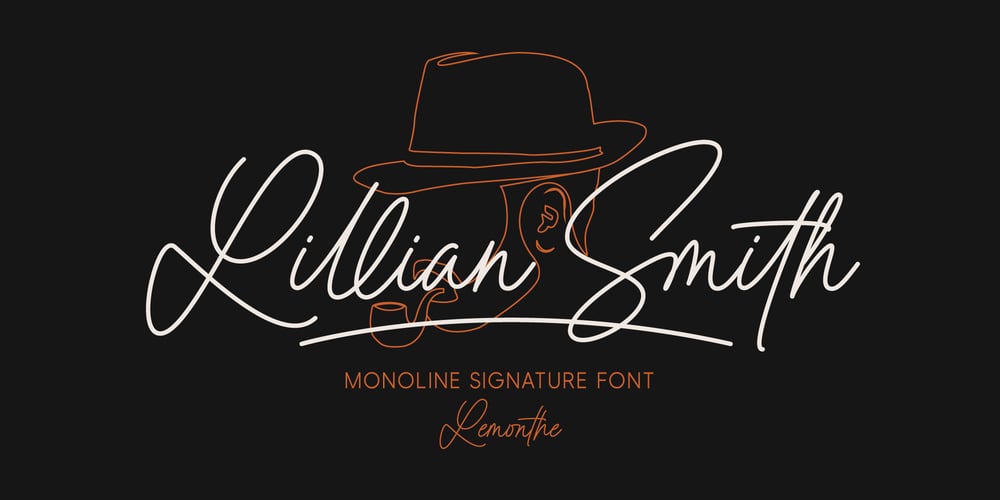
Lillian Smith Font Family was designed by Dwi Ahidian and published by Lemonthe. Lillian Smith contains 1 styles and family package options. Lillian Smith is a monoline signature font. Featuring 84 ligatures, this font delivers a soft and flowing impression. It is highly suitable for adding a modern or classic touch to various design projects such as logos, branding, labels, product packaging, invitation designs, business cards, and much more.